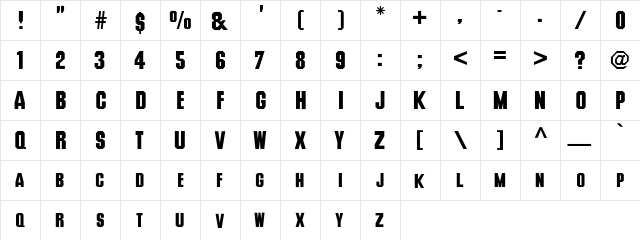
RSDeusex Regular
Design Context for RSDeusex Typeface
RSDeusex offers clean, dependable letterforms without strong stylistic allegiance, making it a practical choice for designers who need flexibility.